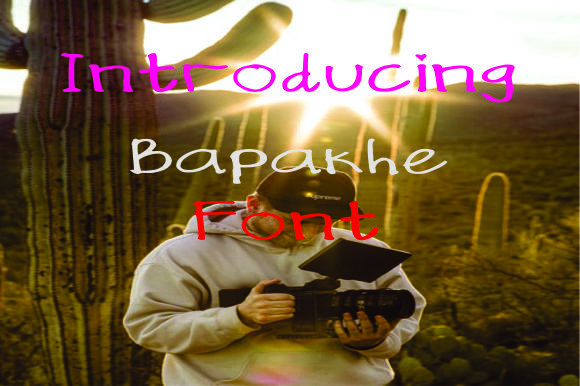
Journey into the realm of Bapakhe Font, a captivating sans serif masterpiece crafted by the visionary mas_plury. Discover a world of creative possibilities as you immerse yourself in the unique charm of this font. Bapakhe Font is not just a collection of letters; it's an expression of individuality, a canvas for your imagination to take flight.
With its playful curves and clean lines, Bapakhe Font exudes a sense of timeless elegance. Each character dances across the page, inviting you to explore new horizons of design. Whether you're crafting logos that demand attention, designing websites that captivate, or creating magazine covers that leave a lasting impression, Bapakhe Font is your perfect companion.
Unleash your creativity and let Bapakhe Font transform your projects into works of art. Its versatility knows no bounds, allowing you to weave magic in the world of logos, web design, magazines, album covers, and more. Imagine the possibilities as you watch your designs come to life, infused with the charm and sophistication of Bapakhe Font.
Immerse yourself in the beauty of Bapakhe Font and let your imagination soar. Embrace the power of creativity and make a statement with every design you create. Bapakhe Font is more than just a font; it's an experience that will leave you inspired and your audience captivated.